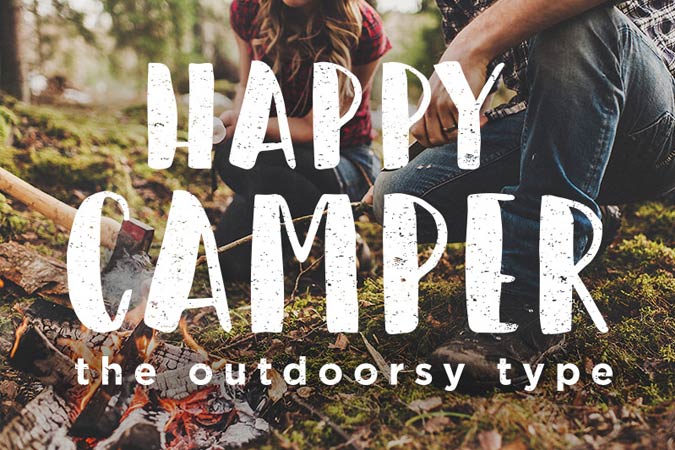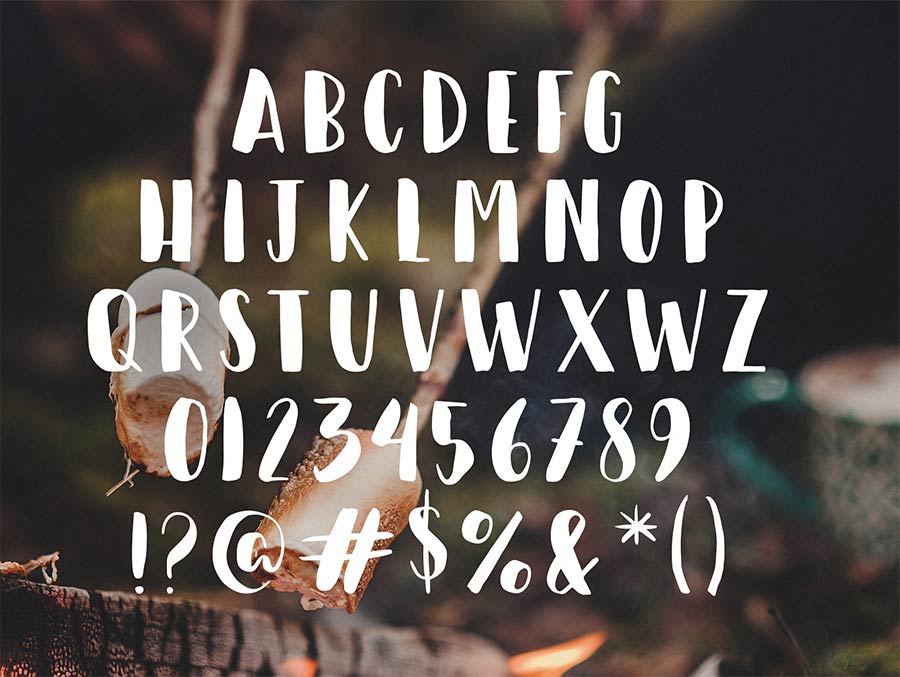
The Happy Camper font is a brush lettered typeface, inspired by happy campers everywhere! I like the strong contrast between the different strokes of each characters. This “hipster” font is definitely suitable for many design purposes!